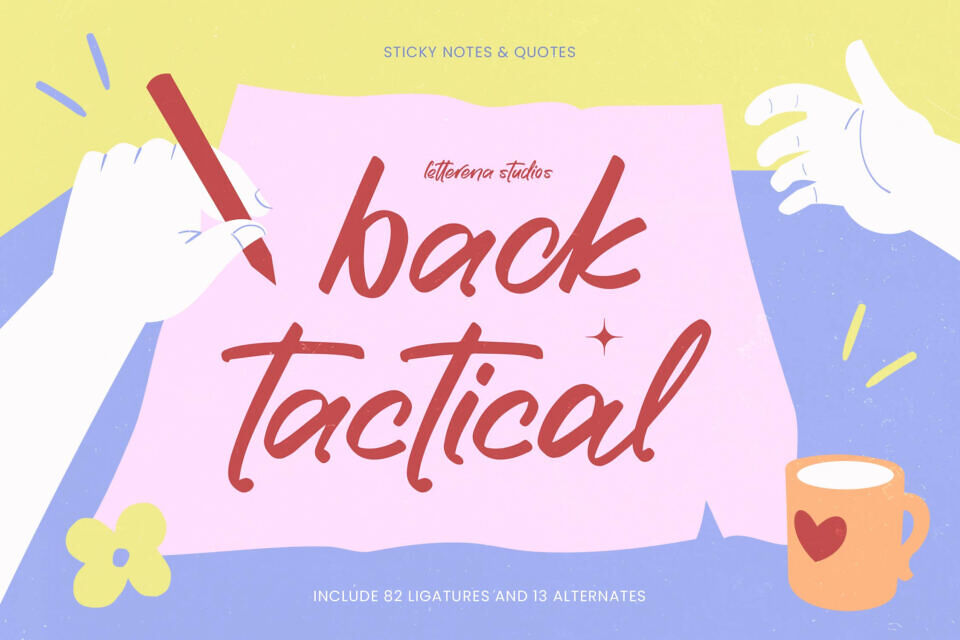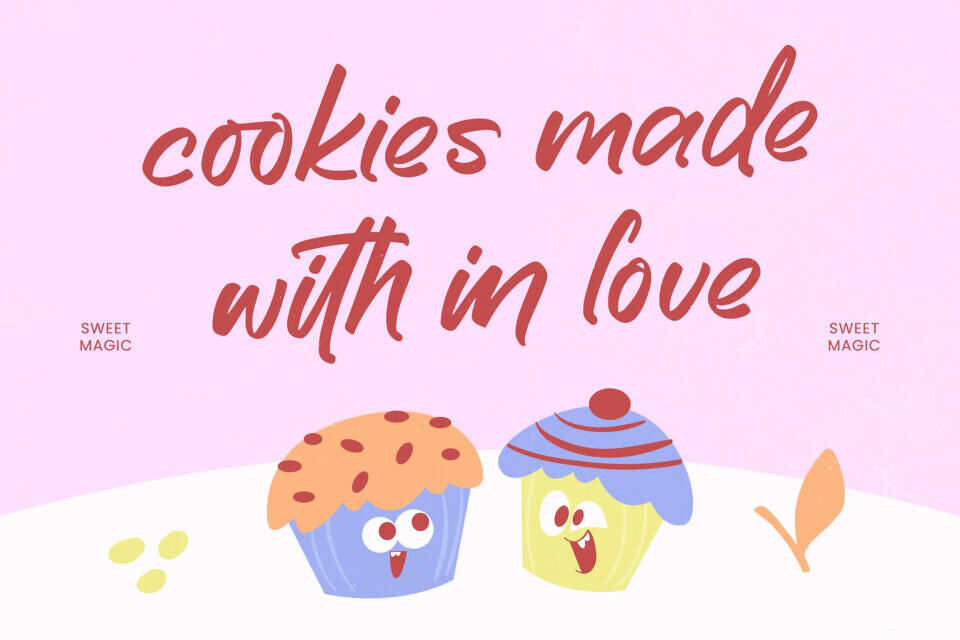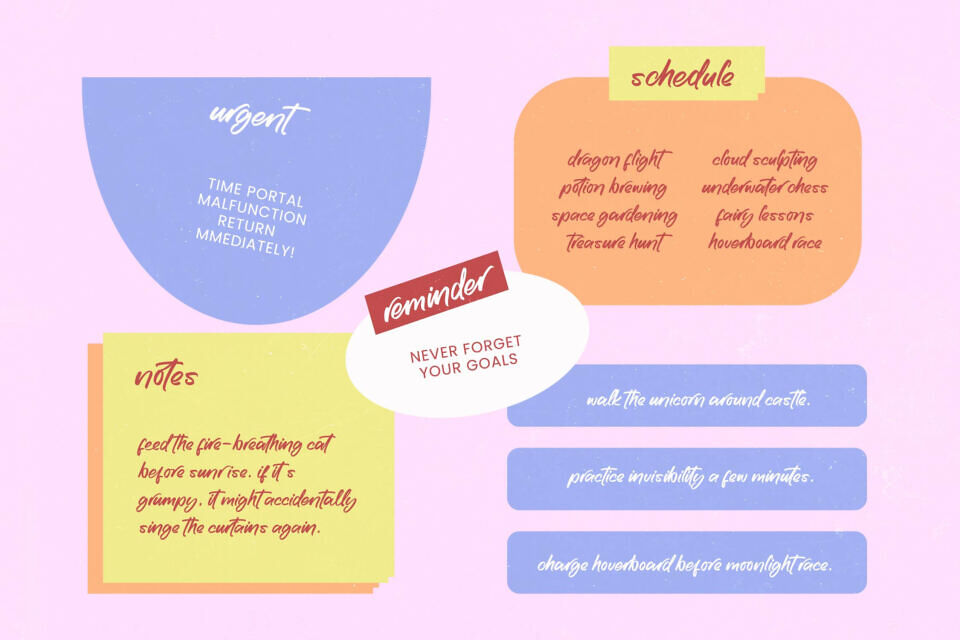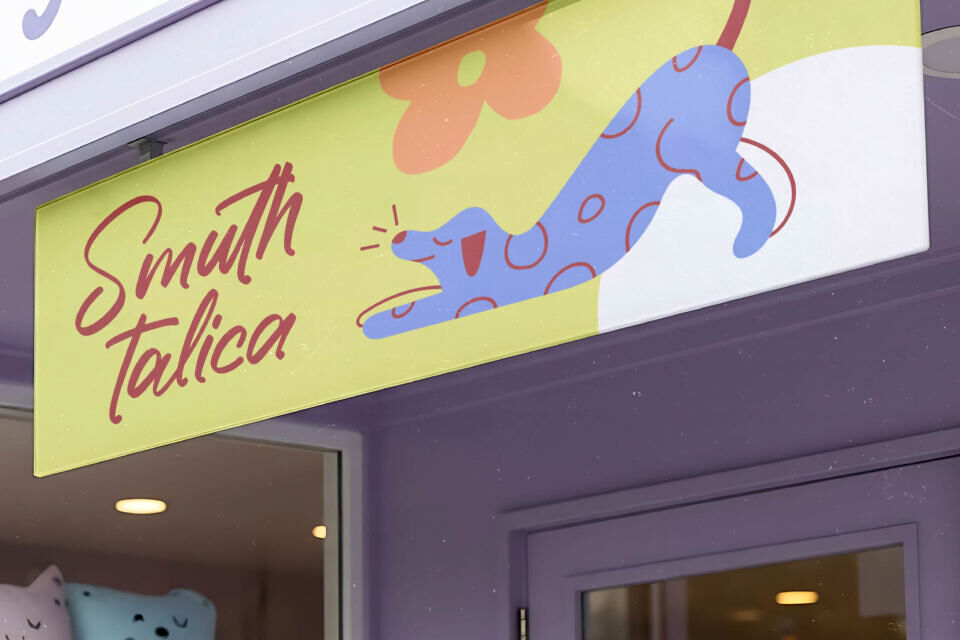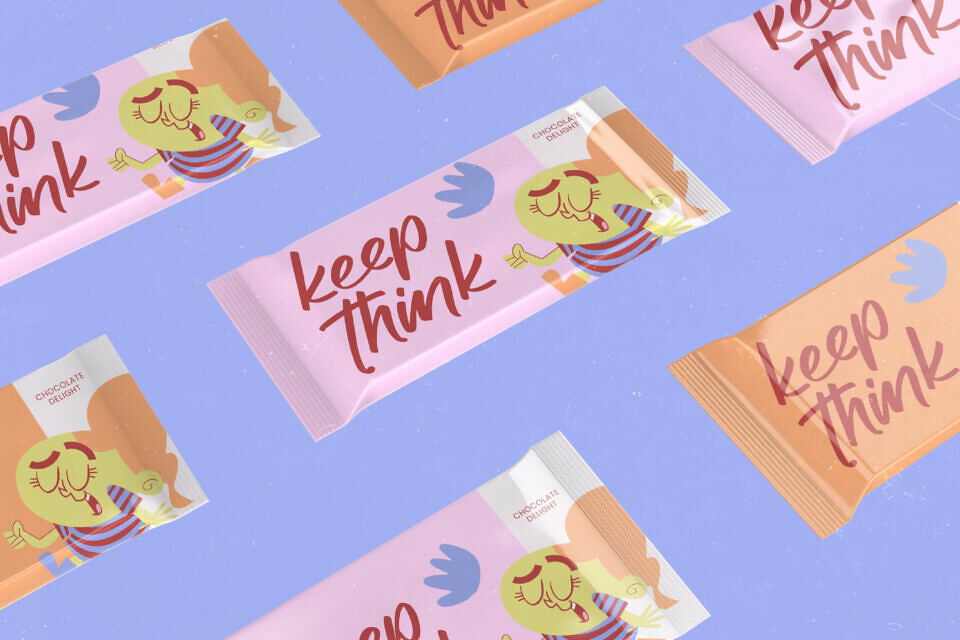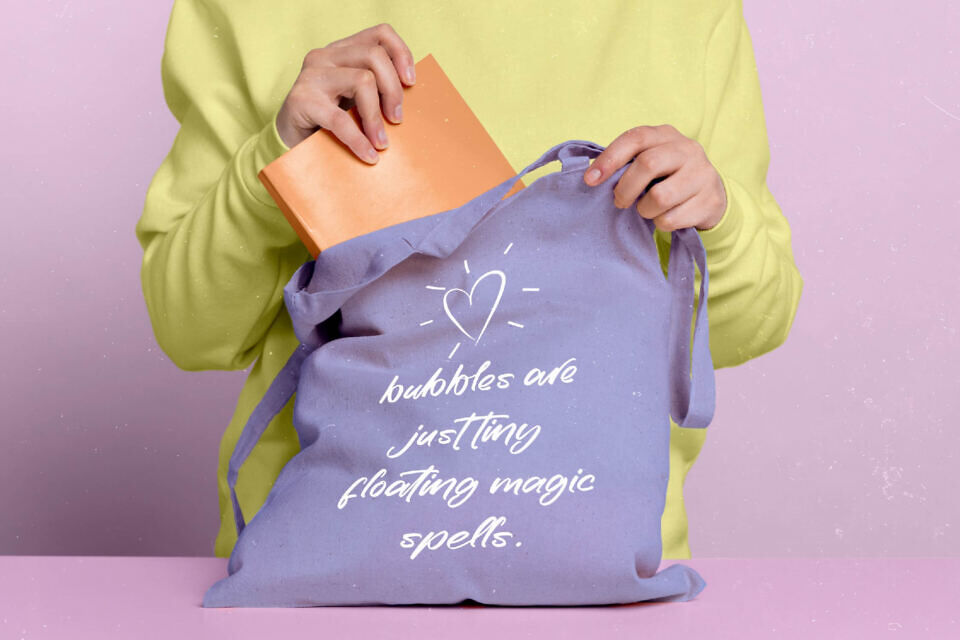
Back Tactical Font
Add a personal touch to your projects with a handwritten font that captures the energy of spontaneous ideas. Back Tactical offers a modern, artisanal look with natural strokes and expressive ligatures.
It supports multiple languages, making it perfect for global projects. With over 80 unique ligatures, you can customize your typography to create a curated, professional feel. This font is ideal for lifestyle branding, social media, and editorial design, bringing warmth and character to your visual campaigns.